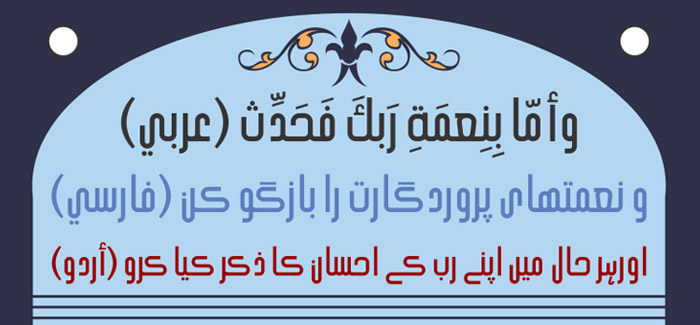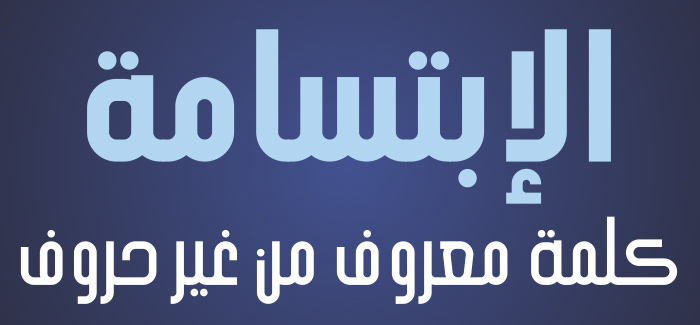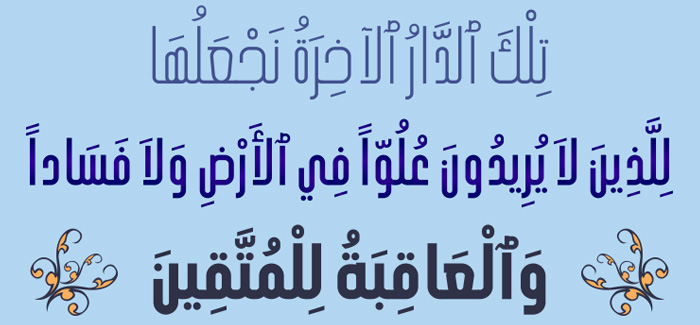
HS Alhandasi font
HS Alhandasi font is an Arabic display typeface. It is useful for book titles and graphic projects where a contemporary, streamlined look is desired.
The font is based on the simple lines of modern and simplified Kufi calligraphy, that support Arabic, Persian and Urdu.
This font was created in the beginning as regular weight in 2007 for use in technical and engineering company. The company tends to follow the geometrical shape with equal dimensions in both vertical and horizontal storks.
There is also a tendency to make all characters to be similar to oval shape with the impression that they are all geometrical and clear.